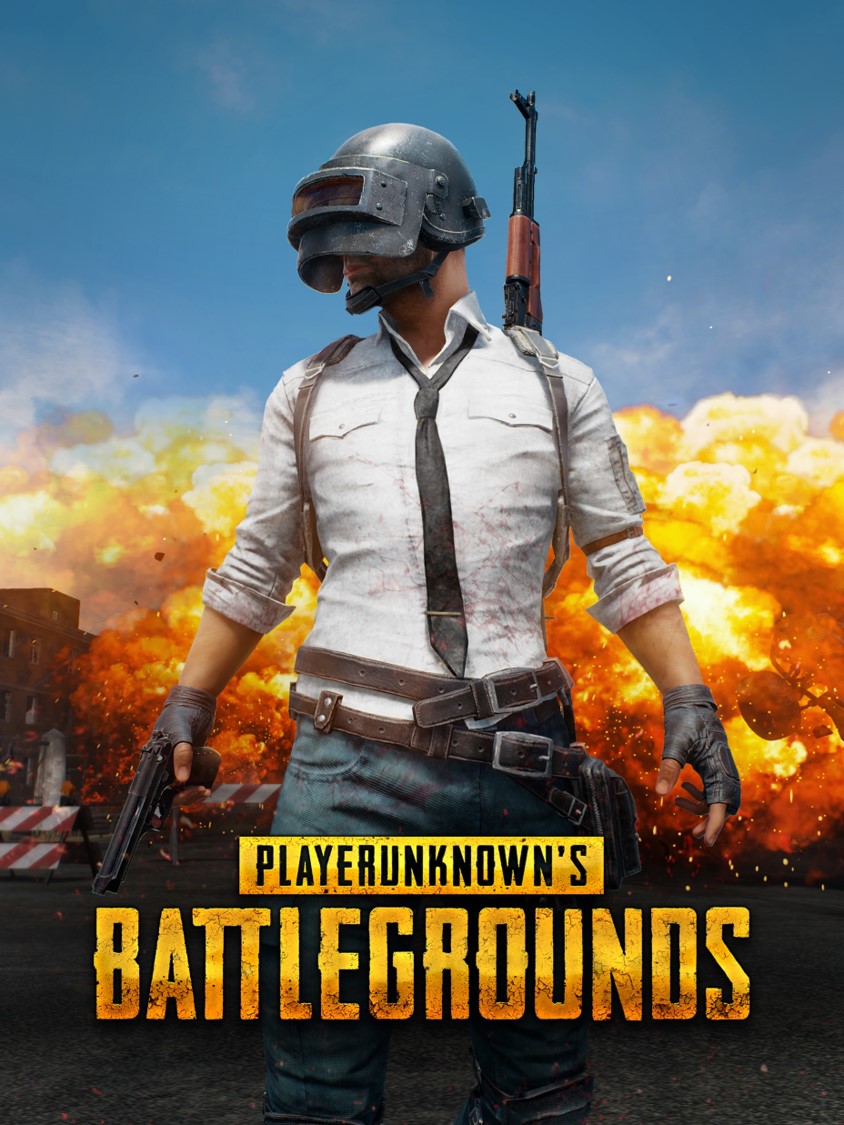
PlayerUnknown's Battlegrounds Font
FightingPlayerUnknown’s Battlegrounds (PUBG) is a multiplayer battle royale game where up to 100 players parachute onto an island, scavenge for weapons and equipment, and fight to be the last person or team standing while a shrinking safe zone forces players into closer proximity.
The video game PUBG logo features the Headliner No. 45 font, created by Kevin Christopher as a tribute to 1940s news headlines. The font comes in Regular and Italic styles, and a free demo version with a limited character set is also available for free download in the Fonts Used Section.